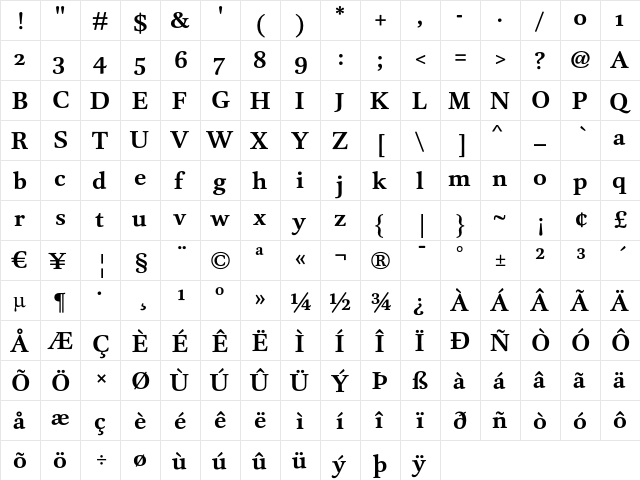
DTL Unico ST Bold
Design Context for DTL Unico Typeface
DTL Unico takes a measured approach to typography — its balanced proportions and neutral character make it a reliable workhorse for both digital and print work. The heavy weight commands attention and anchors typographic hierarchies.